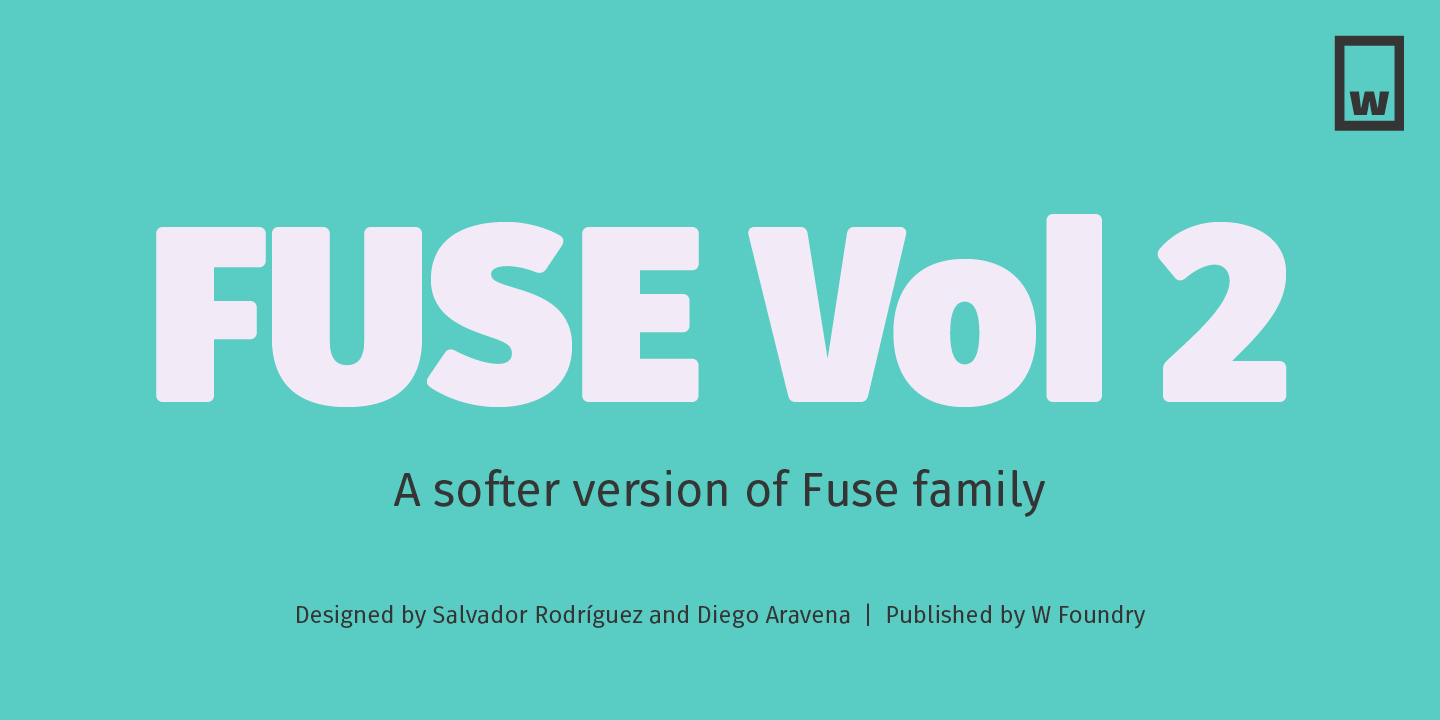
Fuse V.2 Font is perfect for tech startup branding, software interface design, digital fusion companies, innovation consulting firms, collaborative platform marketing, merger and acquisition materials, integrated solution providers, modern connectivity services, and any project requiring typography with seamless integration and technological fusion sophistication.
What makes Fuse V.2 Font exciting is its fusion innovation that captures the dynamic process of combining different elements to create something entirely new and more powerful with letterforms that embody the seamless integration and enhanced capabilities that result from successful technological and creative collaboration. This progressive typeface reflects the cutting-edge approach of modern innovation with streamlined construction that mirrors the efficient connectivity and optimized performance achieved when diverse technologies, ideas, and systems are intelligently combined. The font's fusion character and technological sophistication make it perfect for brands celebrating collaboration, integration, and the transformative power of bringing together disparate elements to create breakthrough solutions.
The Fuse V.2 Font family includes multiple weights from light to black, featuring complete uppercase and lowercase alphabets, numerals, punctuation marks, and fusion-inspired design elements. The font maintains consistent integrated elegance throughout all weights while ensuring optimal performance for both dynamic headlines and detailed technical documentation in technology and innovation contexts.
Whether you're designing for technology integration companies, creating collaborative platform materials, or developing innovation branding with fusion aesthetics, Fuse V.2 Font Free Download delivers unmatched integration authority and technological sophistication to your projects. This exceptional typeface transforms ordinary text into powerful expressions of collaborative innovation that celebrate the art of combining technologies and ideas to create superior solutions. The font's fusion character makes it ideal for tech companies, consulting firms, and innovation-focused organizations. Download this remarkable font today and bring the dynamic power of technological fusion to your design projects with authentic integration sophistication and fuse-inspired innovation excellence.